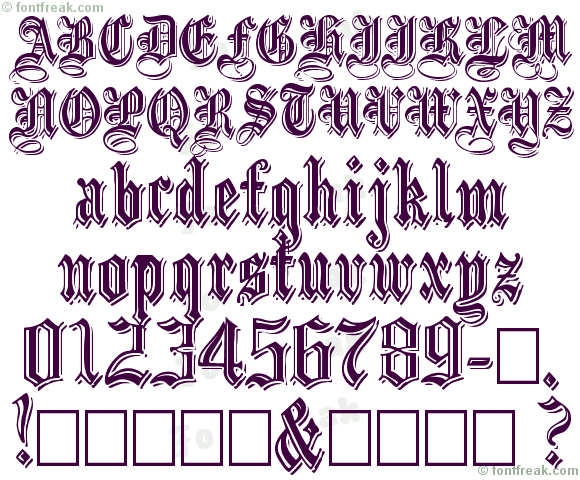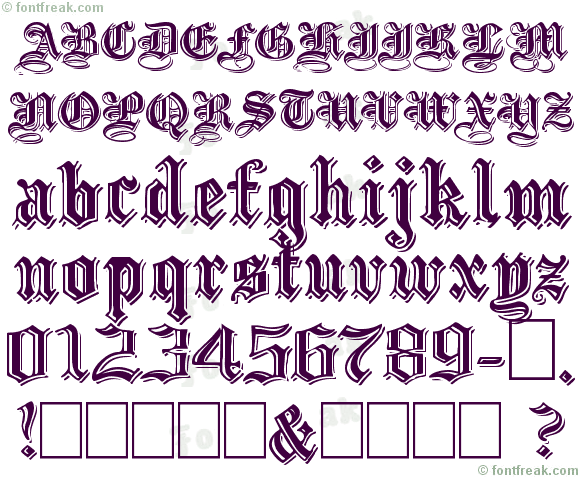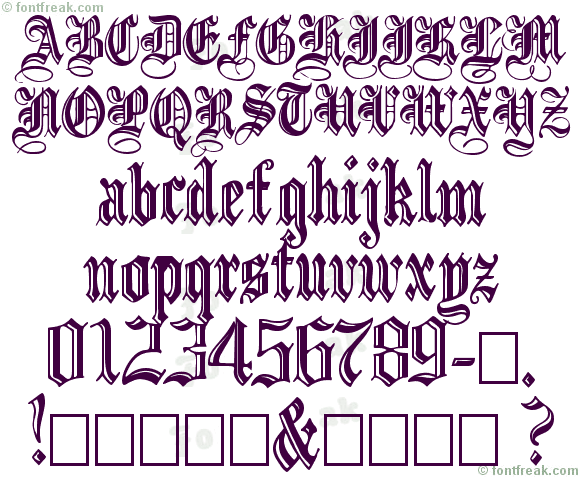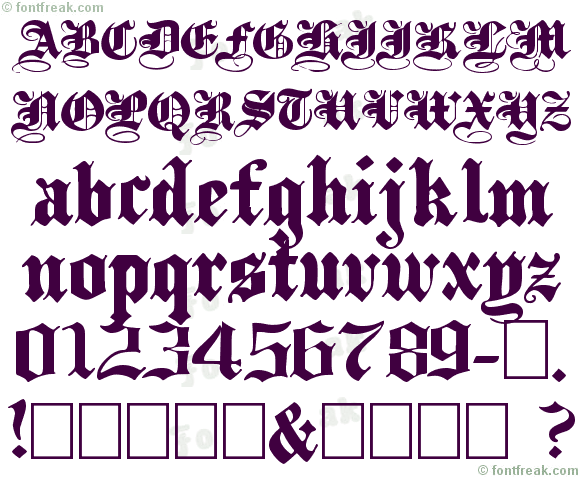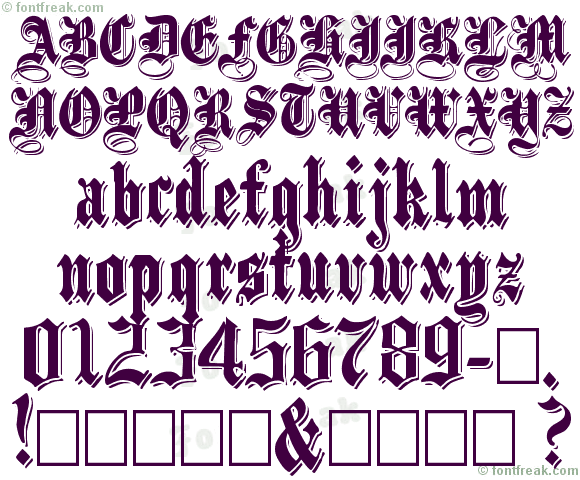
ShadowedBlack Normal
EmbossedBlackWide Normal
PlainBlack Normal
EmbossedBlack Normal
IncisedBlack Normal
PlainBlackWide Normal
ShadowedBlackWide Normal
IncisedBlackWide Normal
The "Black" font, designed by Paul Lloyd, is a striking display typeface that falls into the decorative category. This font showcases a bold and robust character that makes it an eye-catching choice for various design projects. Its heavy stroke weight and minimal contrast create a solid presence, while the distinctive shadow and embossed effects add depth and dimensionality. The spacing is well-balanced, ensuring legibility even in larger sizes, which enhances its visual impact.
This font is particularly versatile, making it suitable for a range of creative applications. It excels in use cases such as movie posters, where its strong appearance can capture attention and evoke emotion. Additionally, it's an excellent choice for restaurant menus, giving a modern yet inviting feel that can enhance the dining experience. Wedding invitations can also benefit from the stylish flair of the Black font, providing a contemporary touch to traditional designs. Furthermore, it can be effectively used for branding purposes, allowing small business owners to create memorable logos that stand out in a crowded marketplace.
What sets the Black font apart is its ability to combine boldness with elegance, making it a standout choice for various design needs. Whether you're crafting promotional materials, designing eye-catching graphics, or creating memorable event invitations, the Black font free download offers a powerful tool to enhance your work and make a lasting impression.